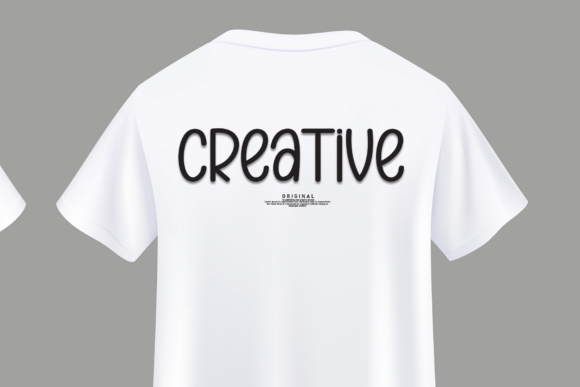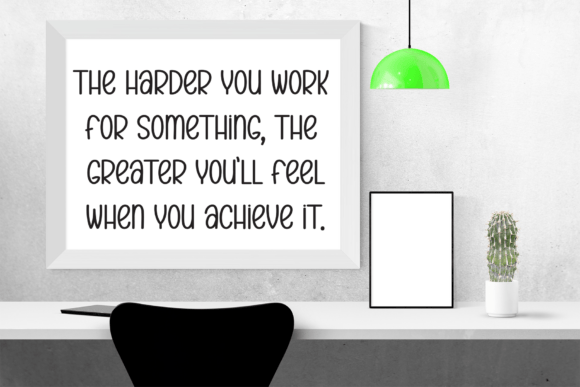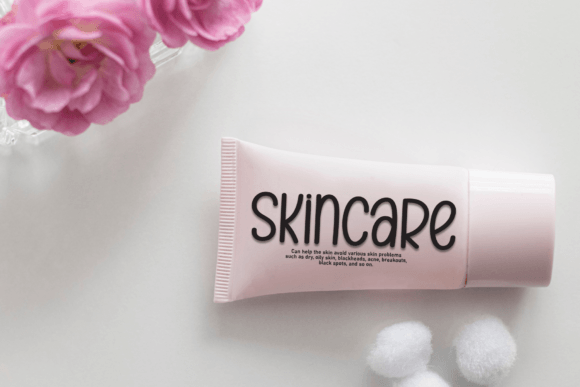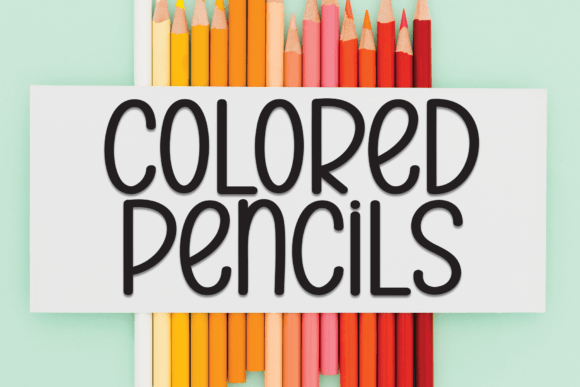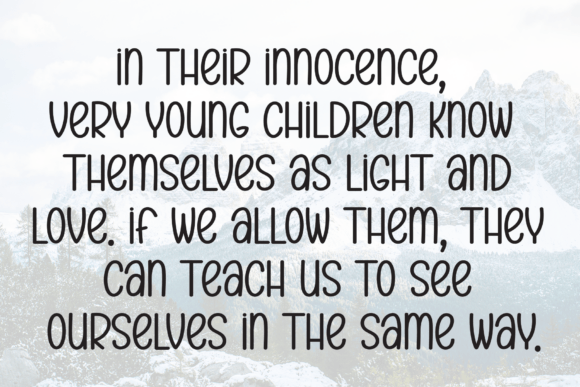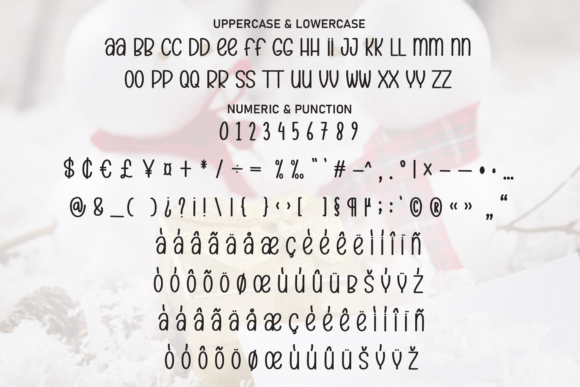
Introduction to Present Snowman Font
As the holiday season approaches, many designers find themselves brainstorming creative ideas for festive projects. I still remember the excitement of decorating my room with handmade cards and snowflakes as a child. The joy of creating something special for loved ones is what drives many designers to take on holiday-themed projects. And for those who want to add a touch of whimsy to their designs, the Present Snowman Font is a valuable resource.
This charming, handwritten font is perfect for designers looking to add a playful and festive feel to their work. With its soft, rounded letters and quirky style, the Present Snowman Font is a great choice for holiday-themed designs, from greeting cards to decorations. Its transparent background and high-quality design make it a versatile resource for any creative project.
Key Features of Present Snowman Font
- Unique and playful design perfect for creative projects, especially during the holiday season.
- High-quality font with transparent background, ideal for designers who want to customize their designs.
- Customizable and editable, making it an excellent choice for designers who want to add a personal touch to their designs.
Honest Review: Present Snowman Font
I recently came across the Present Snowman Font, and I must say it’s a great addition to any design project. The font is perfect for winter-themed designs, holiday cards, or even creative project materials that require a touch of whimsy.
One of the standout features of this font is its transparent background, which makes it easy to use and customize. I love how the font can be used with a solid color or overlaid on top of other design elements for a unique look.
- High quality design that’s perfect for winter-themed designs
- Easy to use and customize with a transparent background
- May not be suitable for professional or formal designs due to its playful nature
- Some users may find the font too cutesy or overused
Overall, I’m impressed with the Present Snowman Font. It’s a fun and creative design resource that’s perfect for holiday designs or projects that need a touch of whimsy. While it may not be suitable for every design project, it’s definitely worth checking out if you’re looking for a unique and festive font.
Common Use Cases for Present Snowman Font
The Present Snowman Font is ideal for holiday-themed designs, such as Christmas cards, New Year’s Eve invitations, or winter-themed social media graphics. You can also use the font in non-holiday contexts, such as adding a touch of whimsy to educational materials or promotional materials.